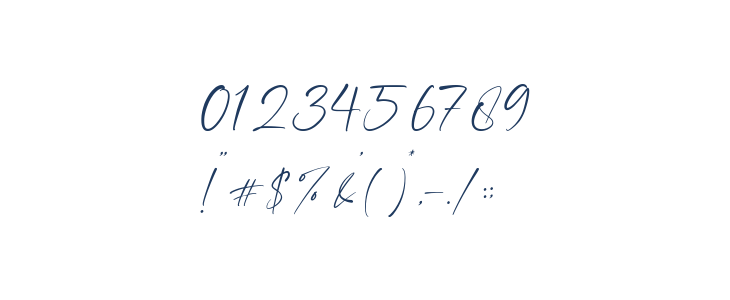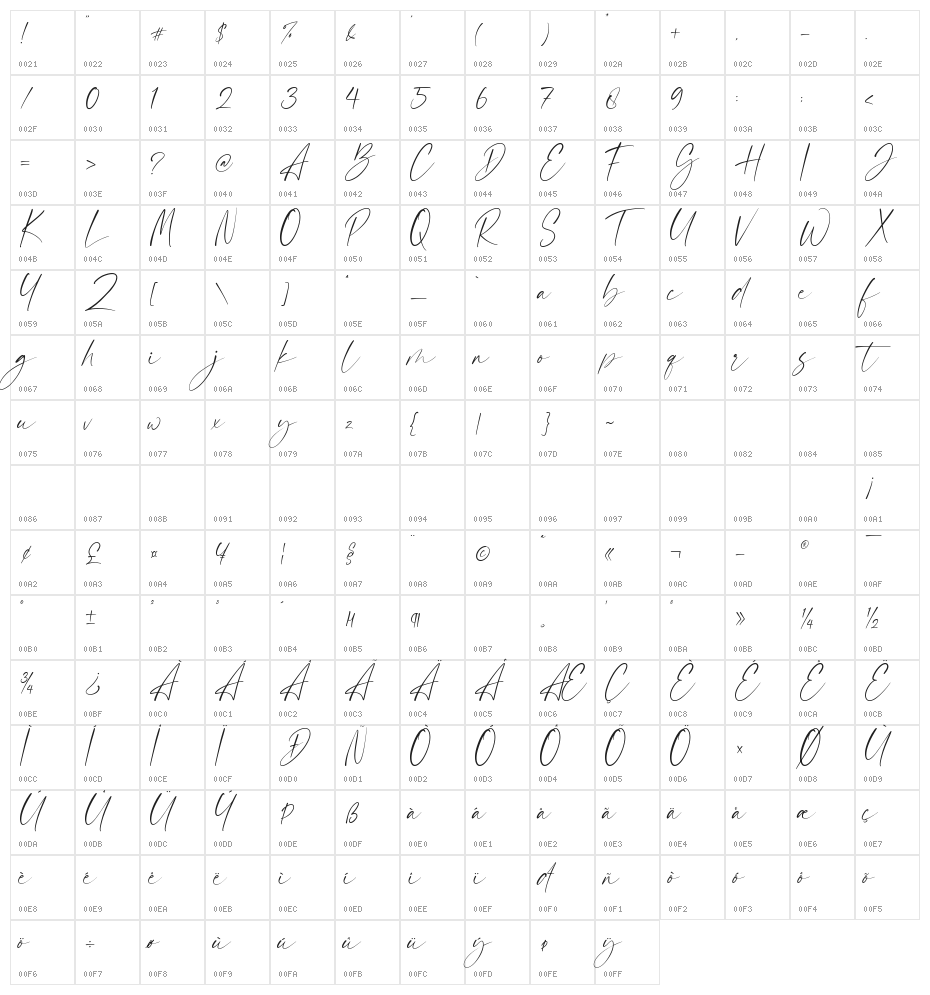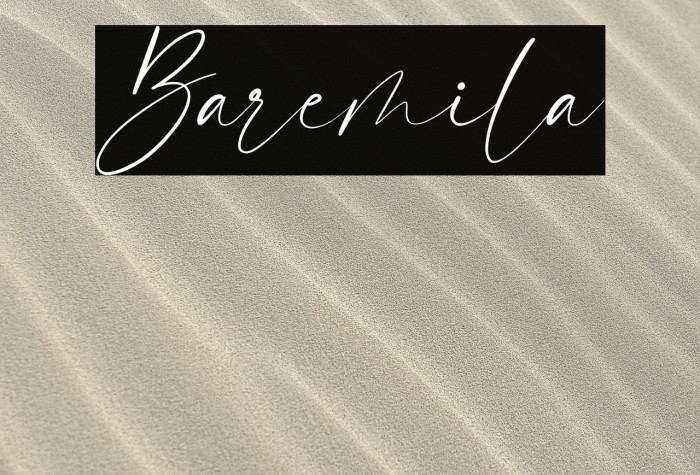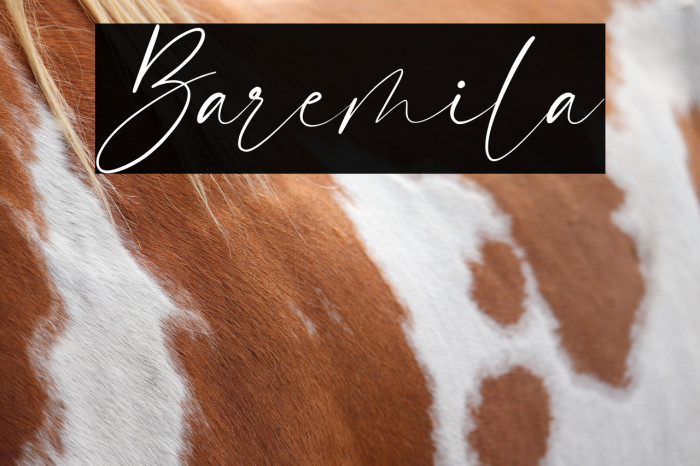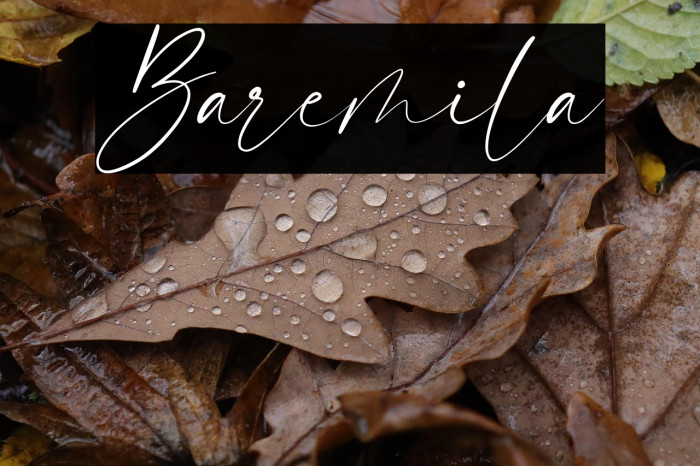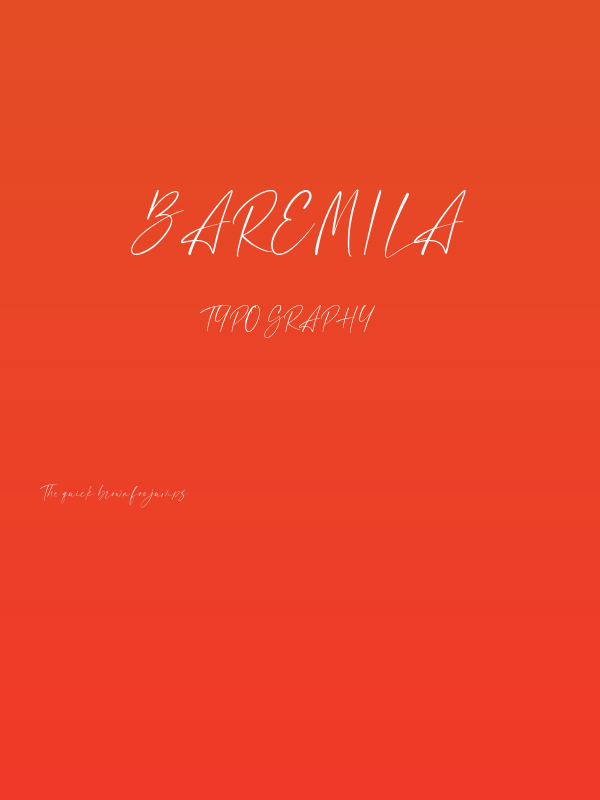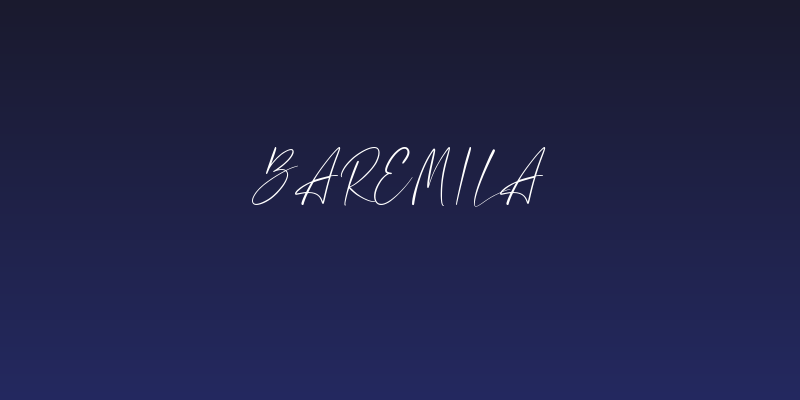
Baremila Font
Baremila Description
This elegant script font features a fluid, cursive style with a natural handwritten appearance. The characters are connected smoothly, creating a sense of flow and movement. The uppercase letters are tall and graceful, while the lowercase letters maintain a consistent slant, adding to the overall elegance. The numerals are distinct yet harmonious with the alphabet, and the special characters are crafted with the same attention to detail. This font exudes sophistication and charm, making it ideal for projects that require a personal touch.
| Use Case | Logos, Invitations, Personal Correspondence |
| Proposed Projects | Ideal for wedding invitations, greeting cards, branding, and personal stationery. |